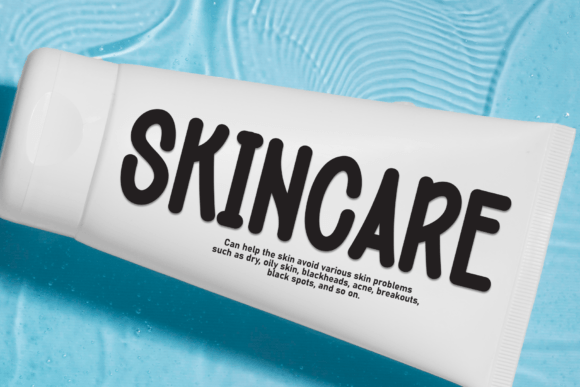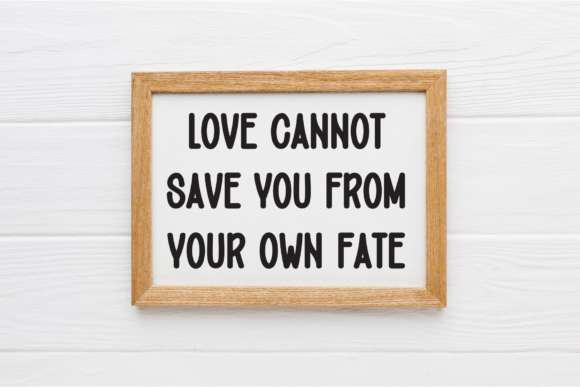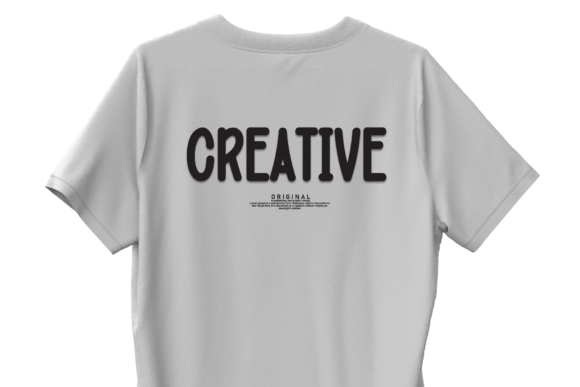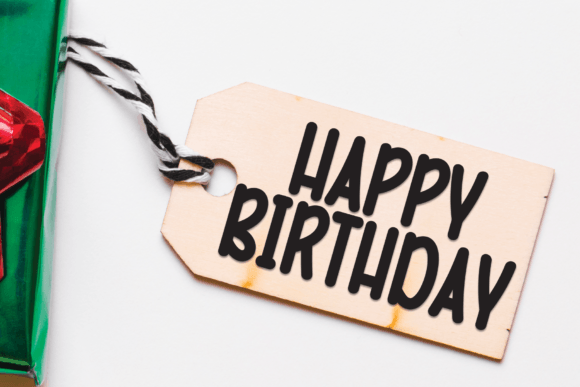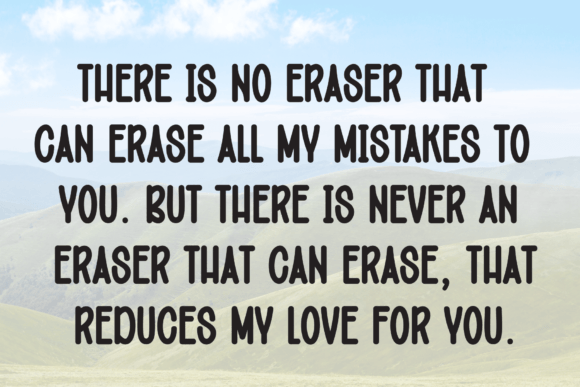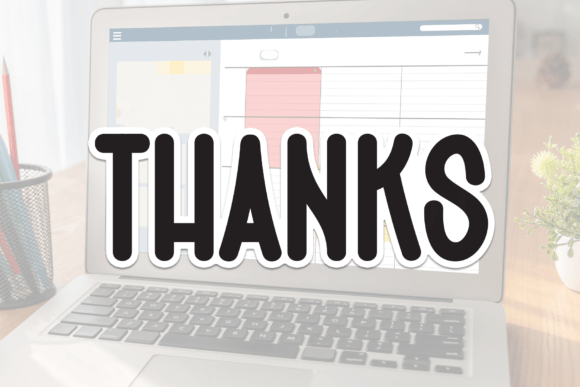
The Sweet Spot: Discovering the Digital Planner Font
I’ll never forget the moment I stumbled upon the Digital Planner font. I was working on a project for a client who wanted a warm and inviting design for their digital planner. I had tried a few fonts, but none seemed to capture the friendly and approachable vibe I was going for. That’s when I discovered Digital Planner, and it was love at first sight! 💕
As a designer, I’m always on the lookout for fonts that can help me create unique and engaging designs. Here’s what I love about Digital Planner:
- ✨ Its natural and unique handwritten style makes it perfect for a wide range of designs, from digital planners to social media graphics.
- ✅ The font is incredibly versatile, and its friendly tone makes it suitable for both personal and professional projects.
- 💖 The font’s imperfections and quirks give it a charming, human touch that’s hard to replicate with more formal fonts.
Of course, no font is perfect, and Digital Planner has a few quirks to keep in mind:
- ⚠️ Some of the letters may appear a bit inconsistent in terms of size and spacing, which can make it tricky to use in certain designs.
- 🤔 The font’s unique style may not be the best fit for very formal or traditional designs.
Exploring Alternatives: Similar Fonts to Digital Planner
If you love Digital Planner, you may also want to check out these similar fonts:
- Pacifico: This beautiful script font has a similar friendly and approachable vibe to Digital Planner. Use it for designs that require a more elegant touch.
- Great Vibes: This handwritten font has a similar natural and unique style to Digital Planner. It’s perfect for designs that require a more rustic or vintage feel.
- Carolyna Pro: This elegant script font has a similar sense of sophistication to Digital Planner. Use it for designs that require a more formal touch.
- Allura: This beautiful script font has a similar friendly and approachable vibe to Digital Planner. Use it for designs that require a more elegant and refined touch.
The Story Behind Digital Planner
Digital Planner was created with the goal of providing a unique and friendly font that could be used for a wide range of designs. The font’s creator wanted to capture the natural and imperfect feel of handwritten text, while still maintaining a level of sophistication and elegance.
| What is Digital Planner font? | Digital Planner is a sweet and friendly handwritten font that’s perfect for a wide range of designs. |
| Does Digital Planner support OpenType features? | Yes, Digital Planner supports OpenType features, including glyphs and stylistic alternates. |